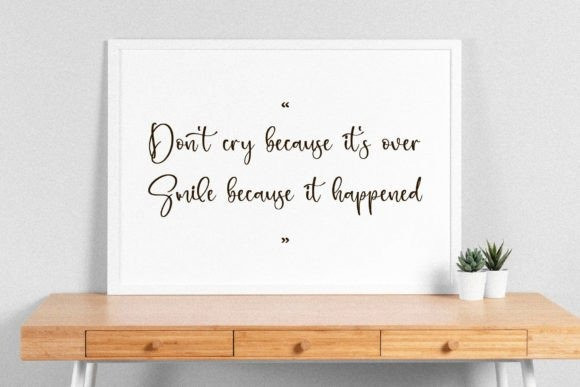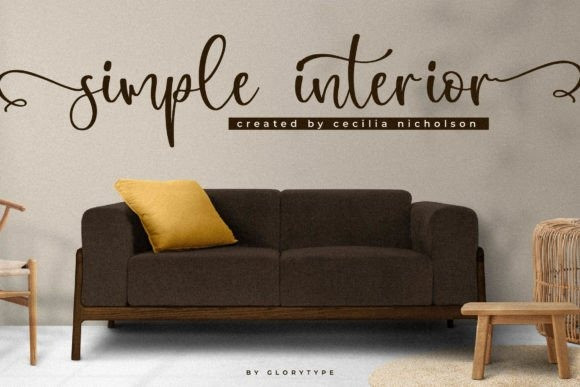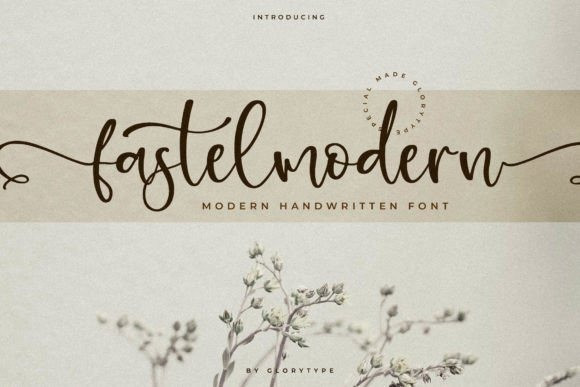
Fastelmodern Font
Fastelmodern – Modern Handwritten Font, suitable for any projects such as logos, branding projects, homeware designs, product packaging, mugs, quotes, posters, shopping bags, t-shirts, book covers, name cards, invitation cards, greeting cards, labels, photography, watermark, special events, and all your other lovely projects that need a beautiful script taste.